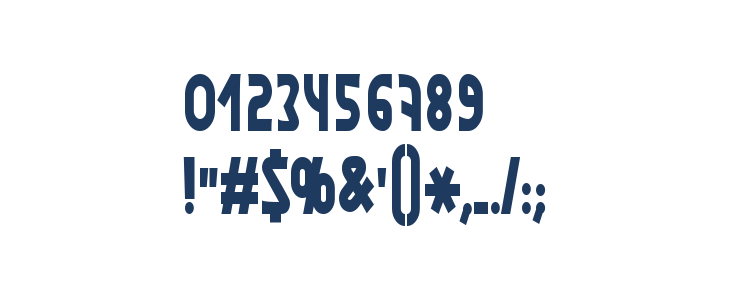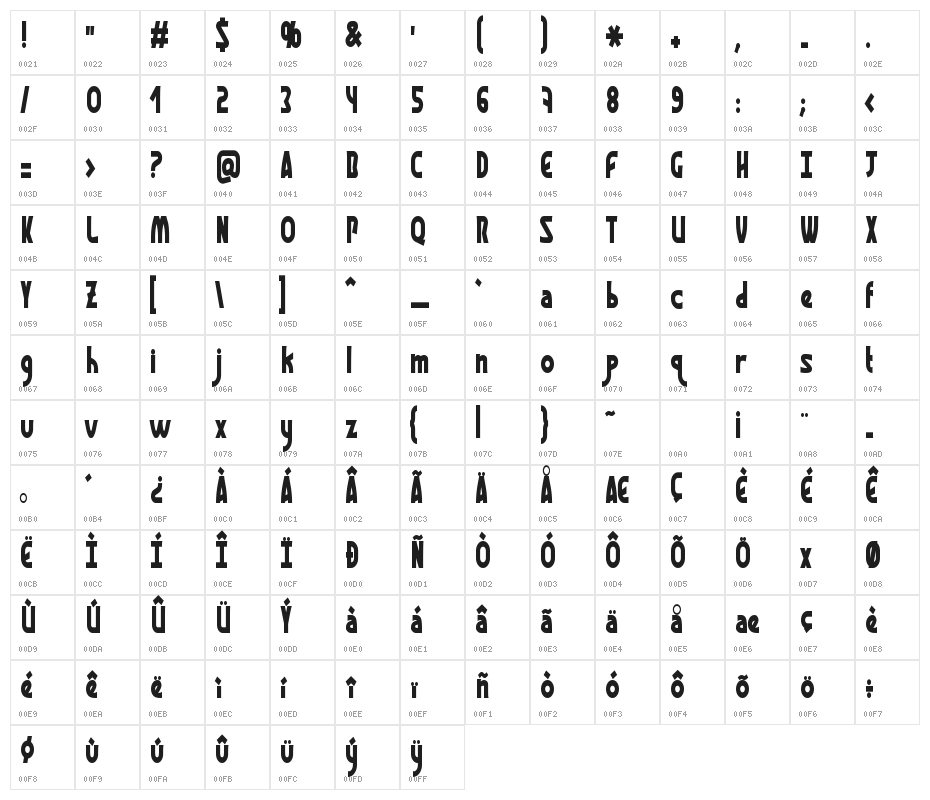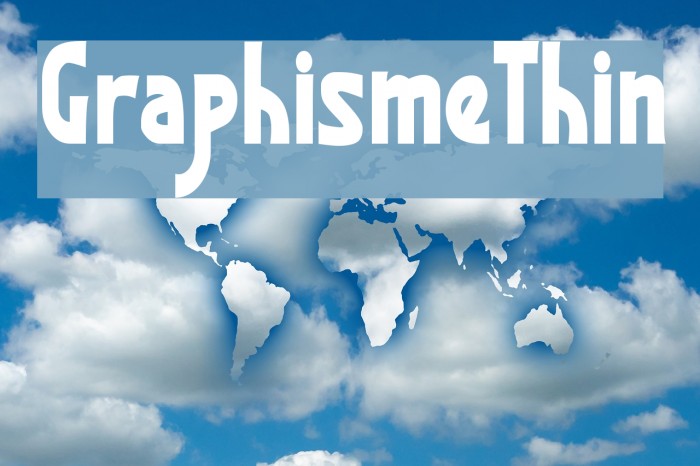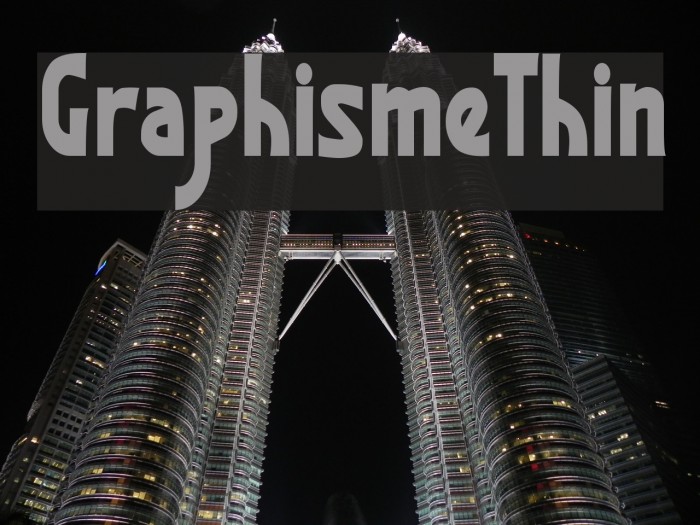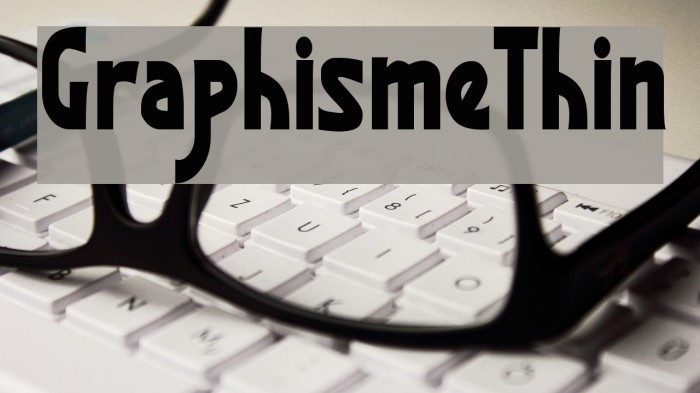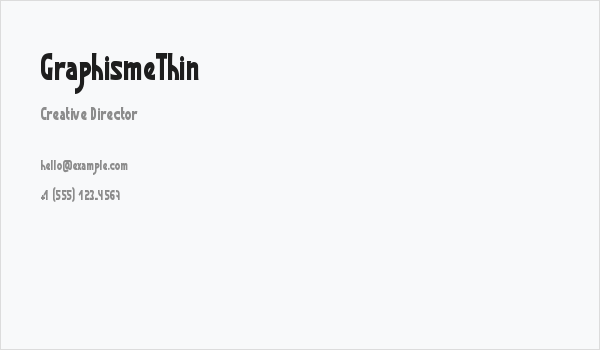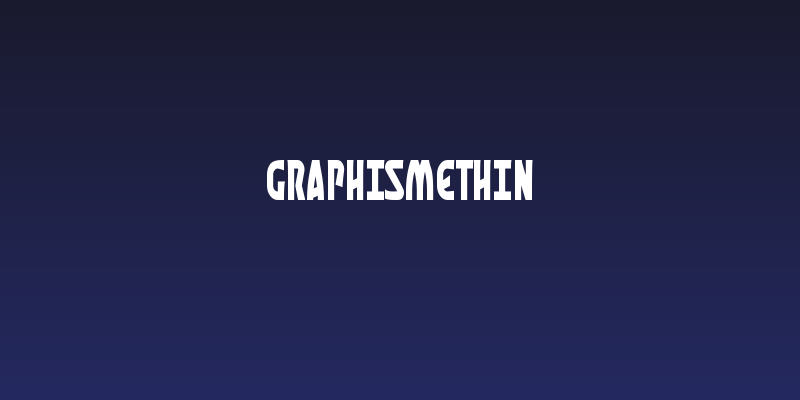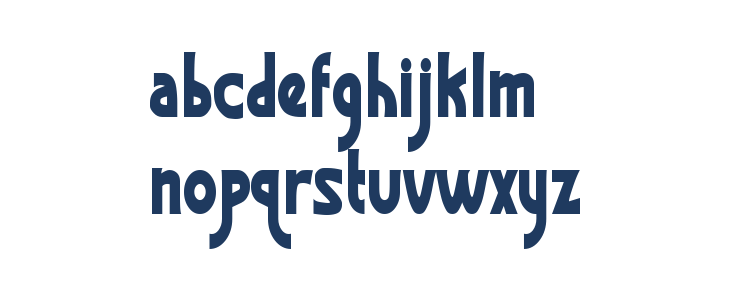
GraphismeThin Font
GraphismeThin Description
This font features a bold and striking design with a strong geometric influence. The uppercase letters are characterized by their thick, uniform strokes and angular shapes, giving them a modern and assertive appearance. The lowercase letters maintain a similar style, with consistent stroke widths and a slightly condensed form, enhancing readability while maintaining a unique aesthetic. The numerals are bold and clear, matching the overall style of the alphabet. Special characters are designed with the same attention to detail, ensuring a cohesive look across all glyphs. This font's boldness and geometric precision make it ideal for impactful designs.
| Proposed Projects | Ideal for branding, posters, headlines, and any project requiring a modern, impactful typeface. |